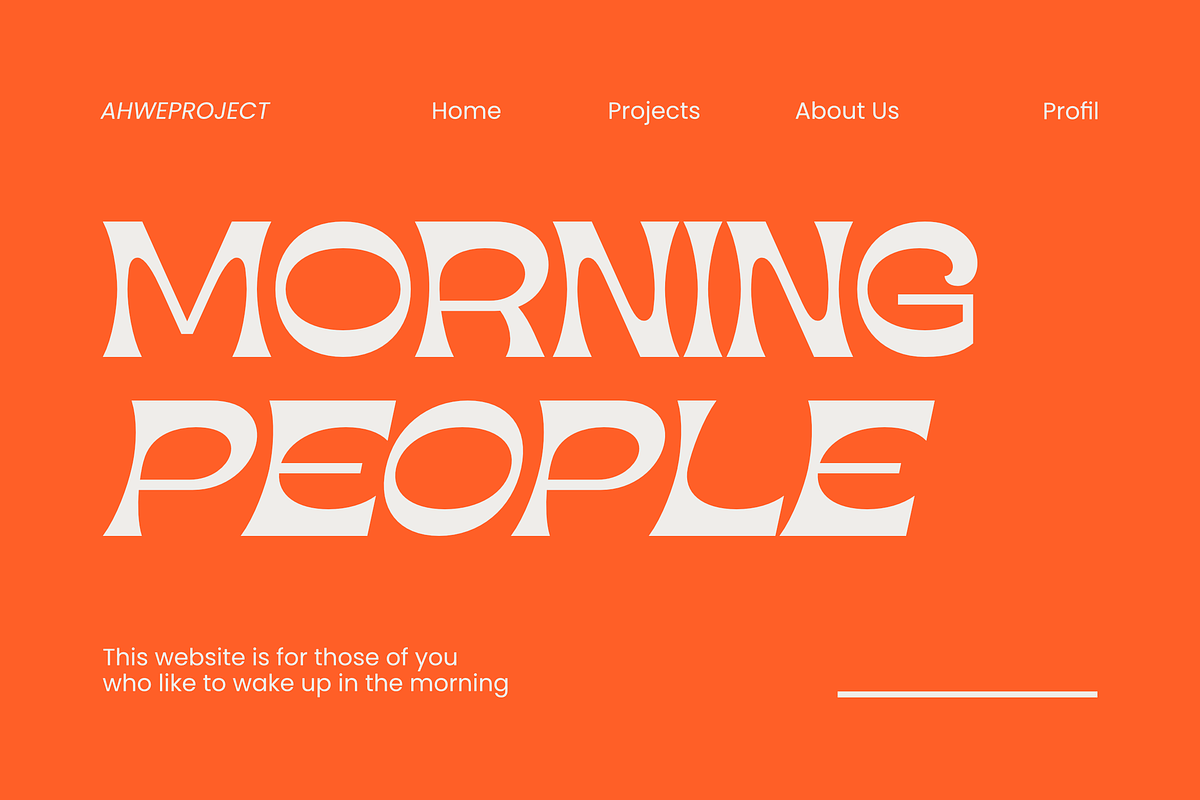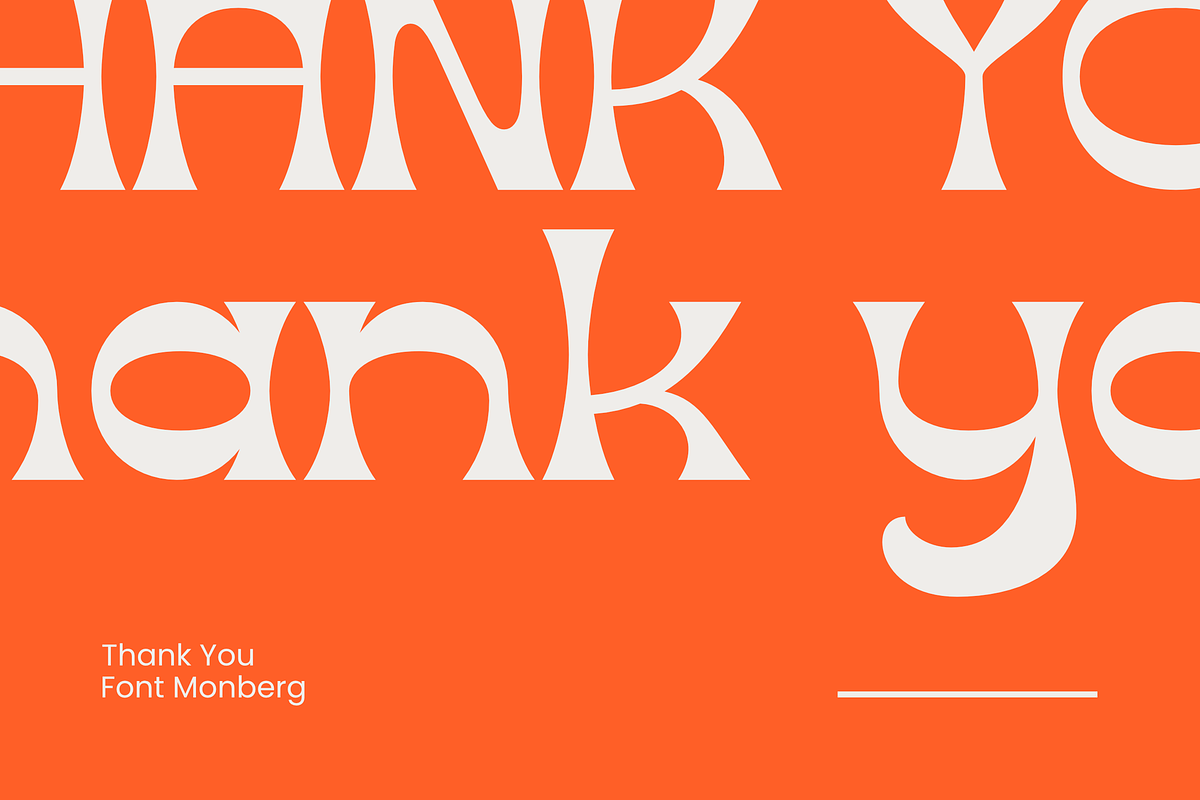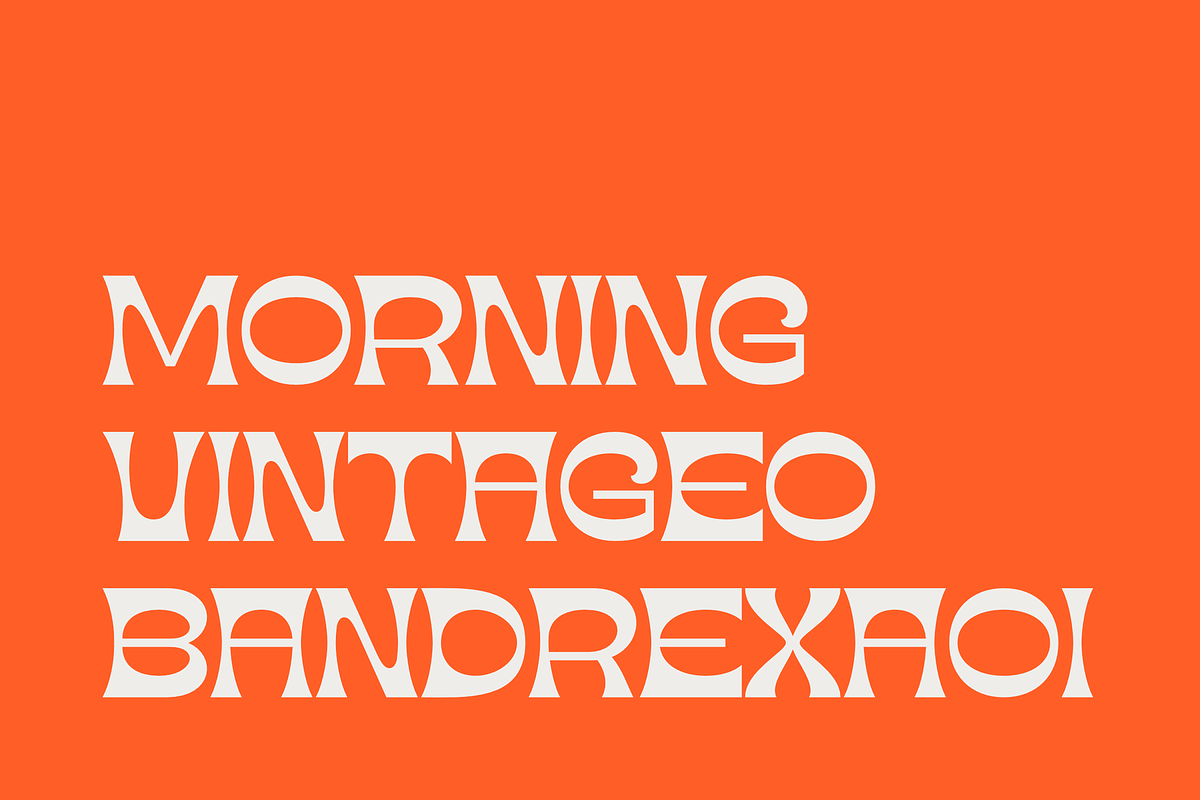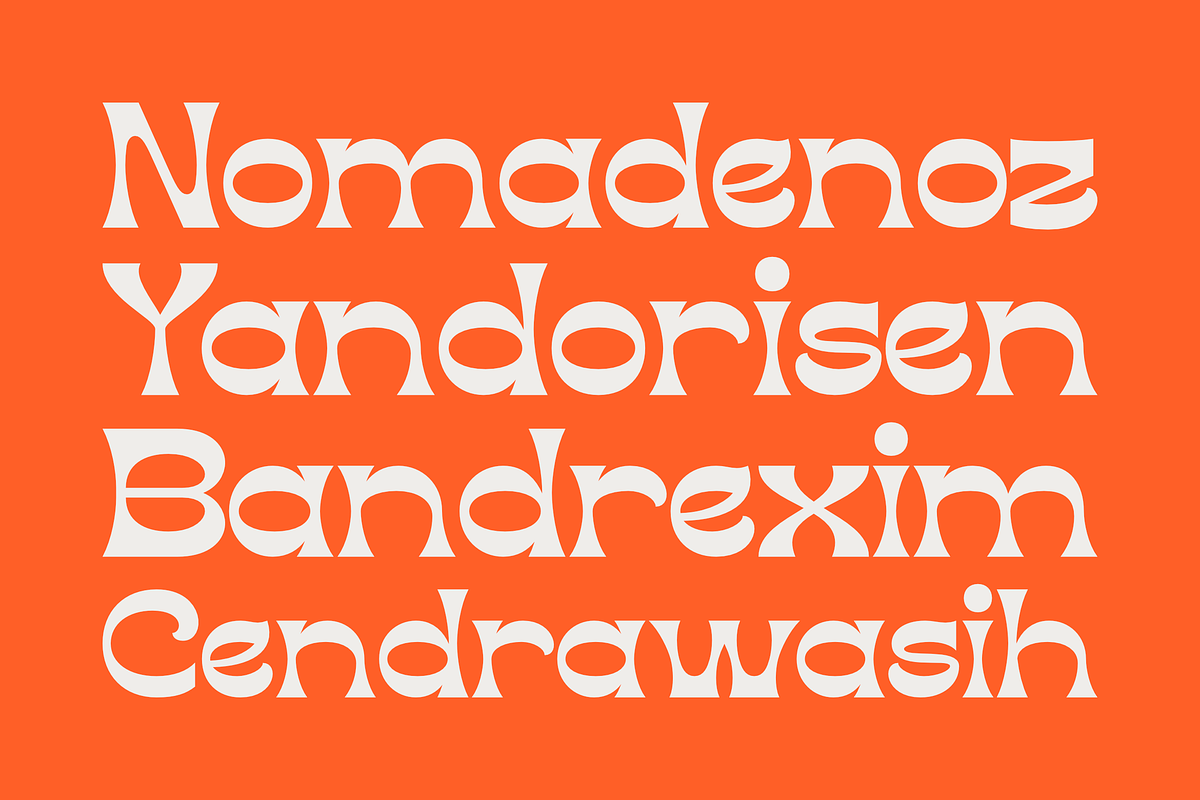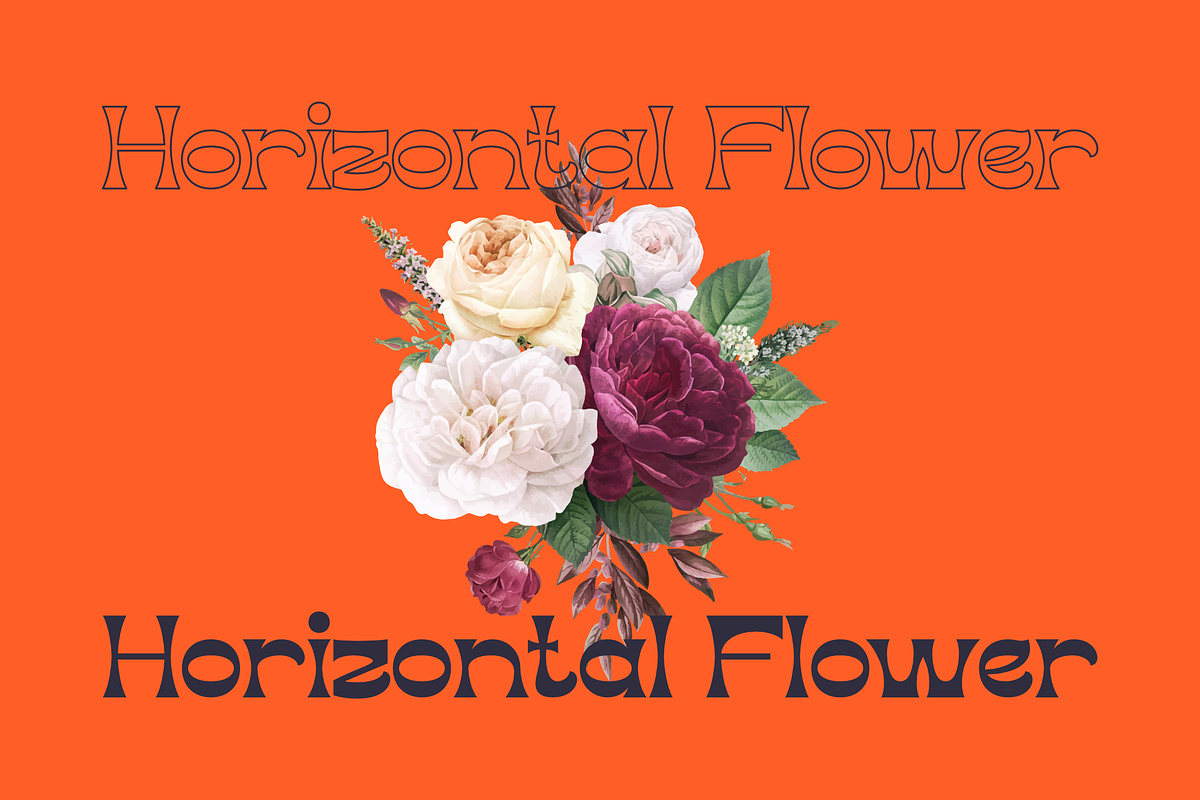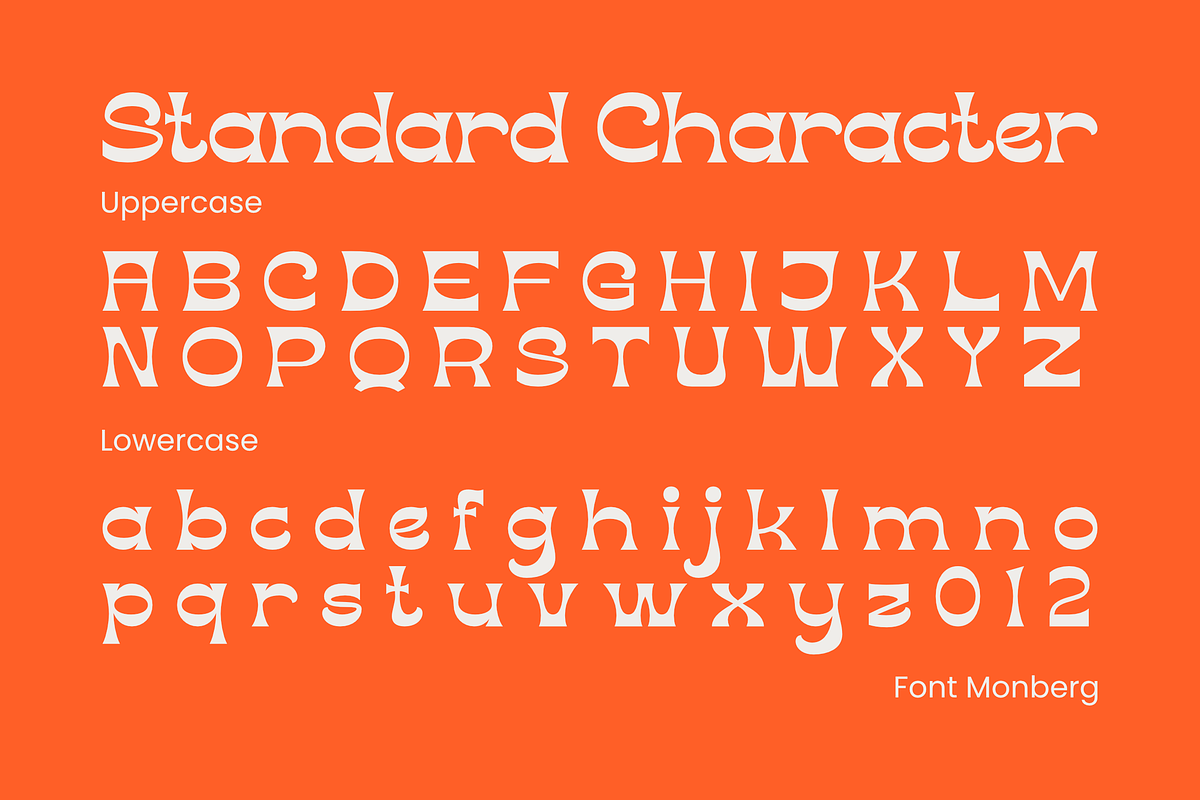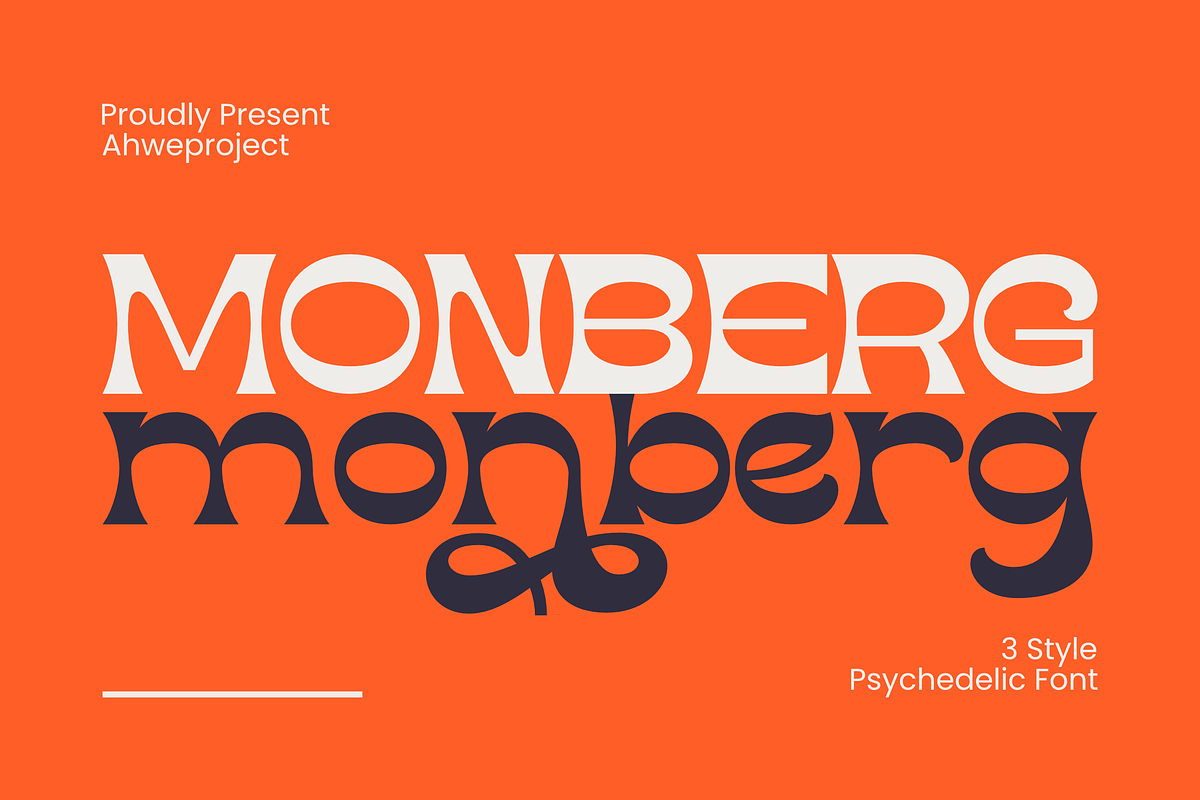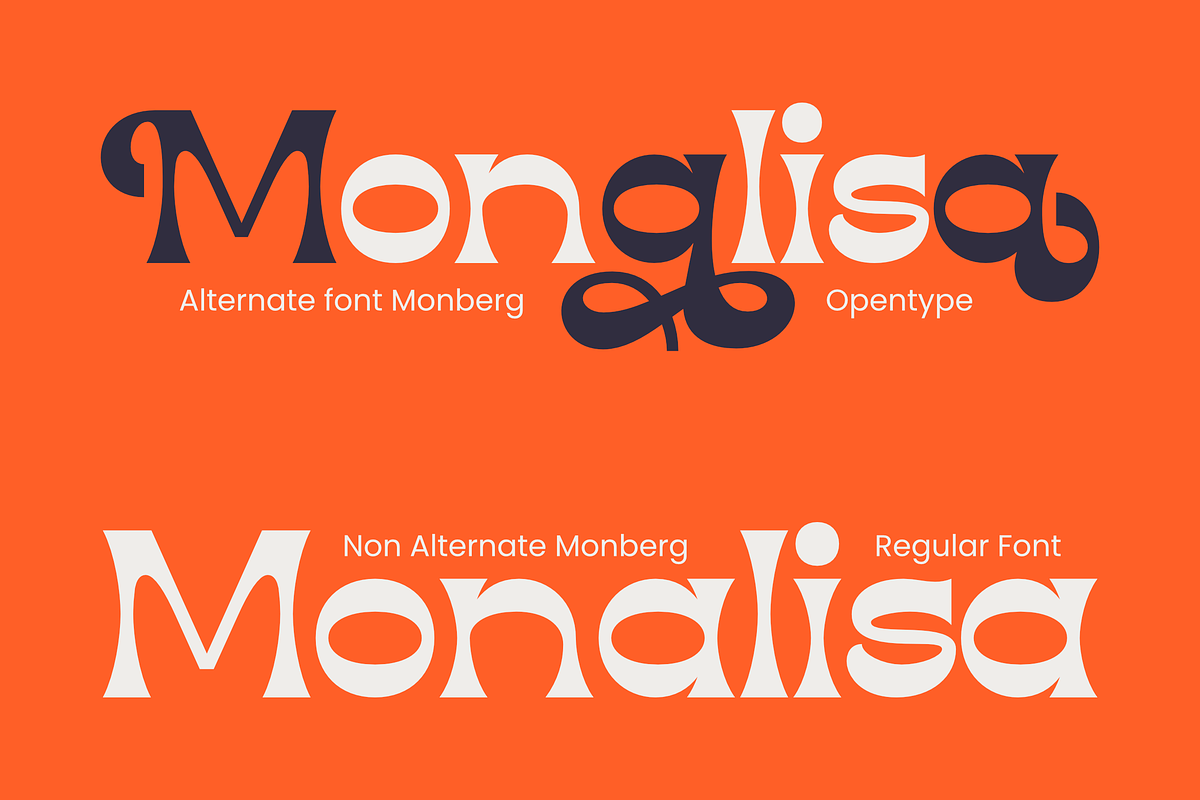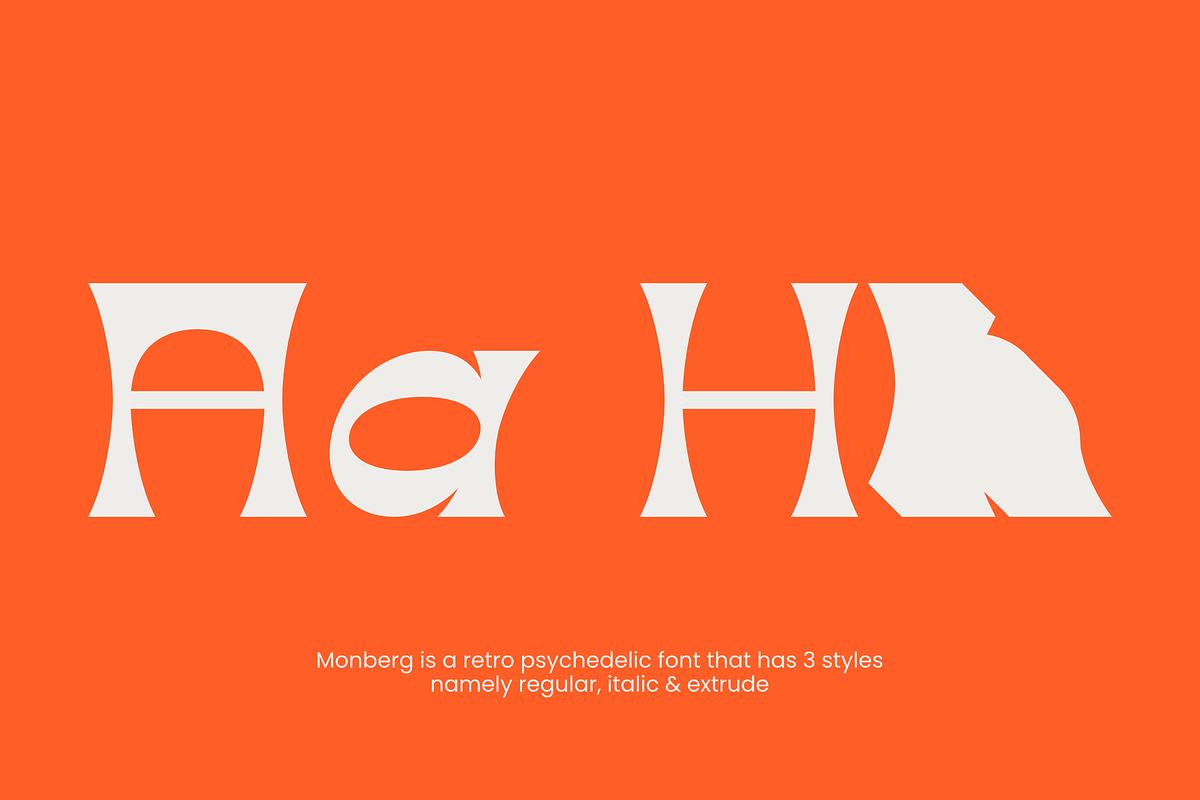
Monberg
Immerse in typographic elegance with Monberg! A dynamic choice for a plethora of design endeavors, it effortlessly elevates logos and branding, breathes life into social media posts, and bestows a distinguished touch on advertisements and product designs. Offering harmonious typography, Monberg promises to be an indispensable asset for your creative projects.